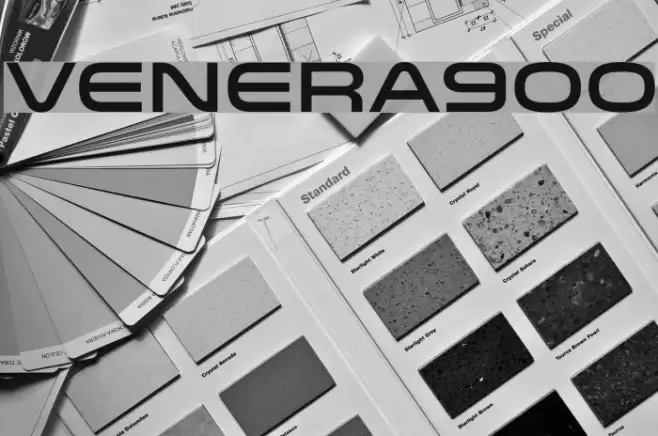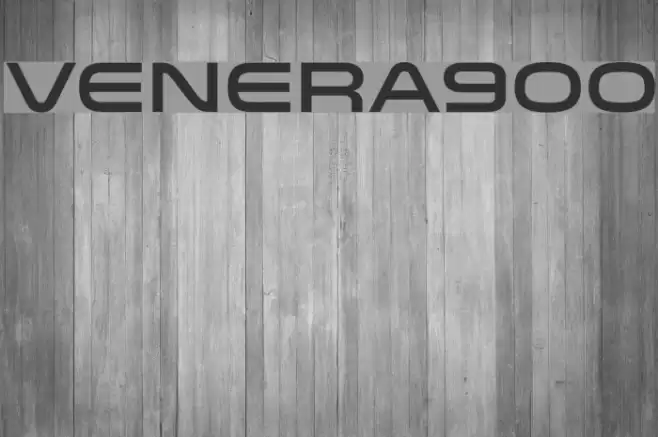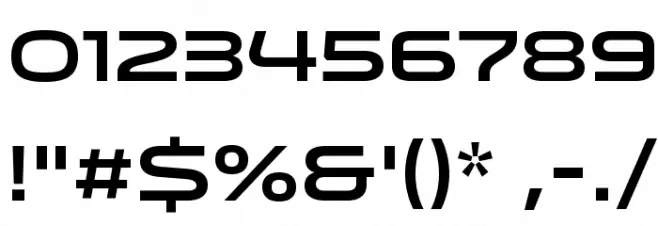
Venera900 Font
Venera900 Description
This font exhibits a sleek, modern aesthetic with a geometric structure. The characters are clean and uniform, featuring sharp angles and smooth curves that create a futuristic feel. The uppercase letters are bold and commanding, while the lowercase letters maintain a consistent style that complements the uppercase. The numerals are distinct and easy to read, with a design that matches the overall theme. Special characters are crafted with precision, adding to the font's versatility. The overall appearance is both professional and stylish, making it suitable for a variety of design applications.
A modern, geometric font with a sleek and futuristic design from Uncategorized fonts.